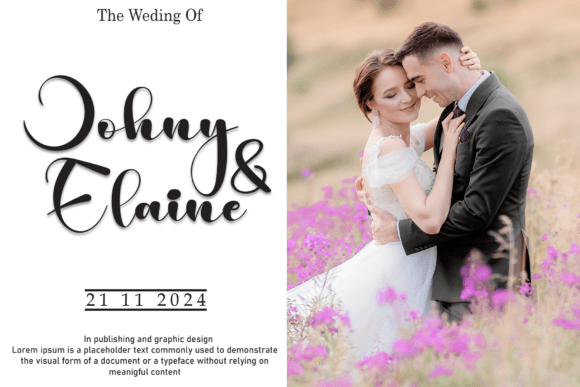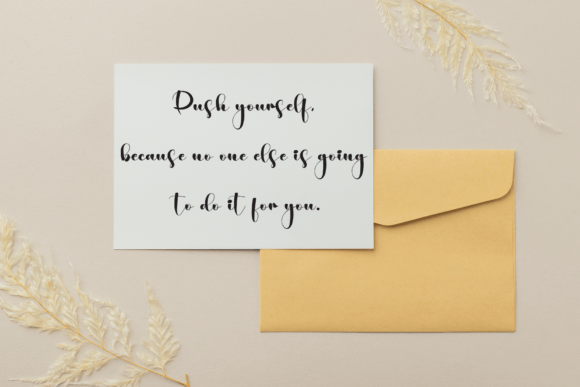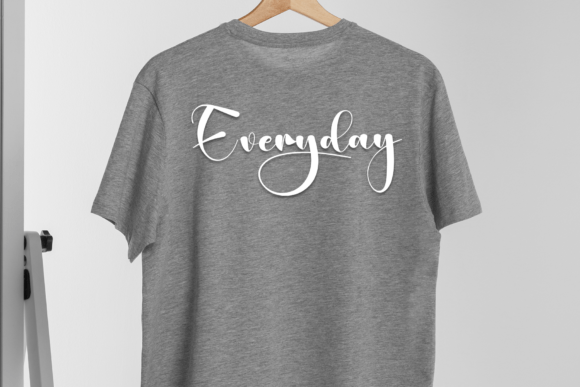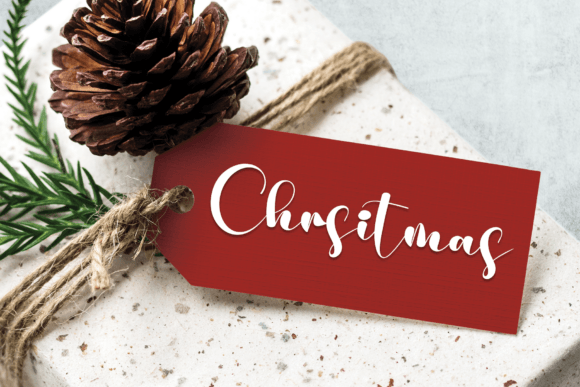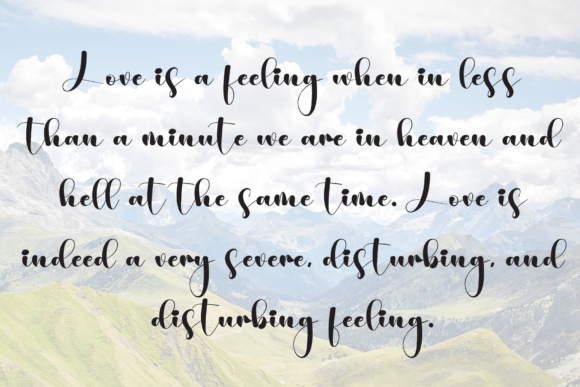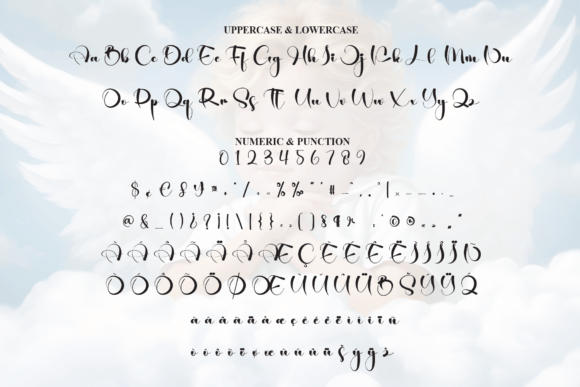
Discover the Elegance of Angels Font: A Charming Script Font for Creative Projects
Are you a designer or crafter looking for a font that can add a touch of elegance and playfulness to your creative projects? Look no further than Angels Font, a charming script font that is sure to captivate your audience. With its smooth, flowing letters, Angels Font is perfect for invitations, cards, and other creative projects that require a personal touch.
The Characteristics of Angels Font
Angels Font is a script font that boasts smooth, flowing letters that exude elegance and sophistication. The curves of each letter are carefully crafted to create a sense of movement and fluidity, making it perfect for projects that require a touch of whimsy and playfulness. The font’s elegant and refined appearance makes it ideal for use in:
- Birthday cards and party invitations
- Creative projects, such as scrapbooking and paper crafting
The Benefits of Using Angels Font
So, why choose Angels Font for your creative projects? Here are just a few benefits of using this charming script font:
- Elegant and playful: Angels Font strikes the perfect balance between elegance and playfulness, making it suitable for a wide range of creative projects.
- Personal touch: The font’s handwritten curves add a personal touch to your designs, making them feel more approachable and relatable.
- Versatile: Angels Font can be used in a variety of contexts, from formal events to casual creative projects.
- Easy to read: Despite its elegant and cursive nature, Angels Font is surprisingly easy to read, making it perfect for use in body text and captions.
How to Use Angels Font in Your Creative Projects
Using Angels Font in your creative projects is easy and straightforward. Here are a few tips to get you started:
- Pair it with contrasting fonts: Combine Angels Font with bold, sans-serif fonts to create visual interest and contrast.
- Experiment with colors: Try pairing Angels Font with bright, bold colors to add a pop of personality to your designs.
- Use it for headings and titles: Angels Font is perfect for use in headings and titles, where its elegant and playful curves can add a touch of sophistication.
Tips and Tricks for Working with Angels Font
Here are a few additional tips and tricks to keep in mind when working with Angels Font:
- Adjust the font size: Experiment with different font sizes to find the perfect balance between elegance and readability.
- Pay attention to kerning: Make sure to adjust the kerning between letters to ensure that the font looks smooth and even.
- Use it sparingly: While Angels Font is perfect for use in headings and titles, it can be overwhelming if used excessively. Use it sparingly to create visual interest and emphasis.
In conclusion, Angels Font is a charming script font that is perfect for designers and crafters looking to add a touch of elegance and playfulness to their creative projects. With its smooth, flowing letters and handwritten curves, Angels Font is sure to captivate your audience and leave a lasting impression. Whether you’re working on a wedding invitation, birthday card, or creative project, Angels Font is a versatile and elegant choice that’s sure to impress.
So why not give Angels Font a try today and see the difference it can make in your designs?